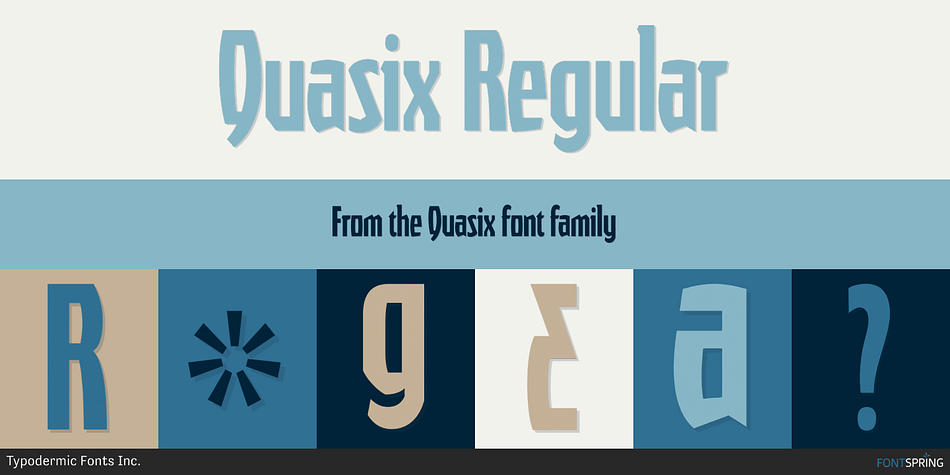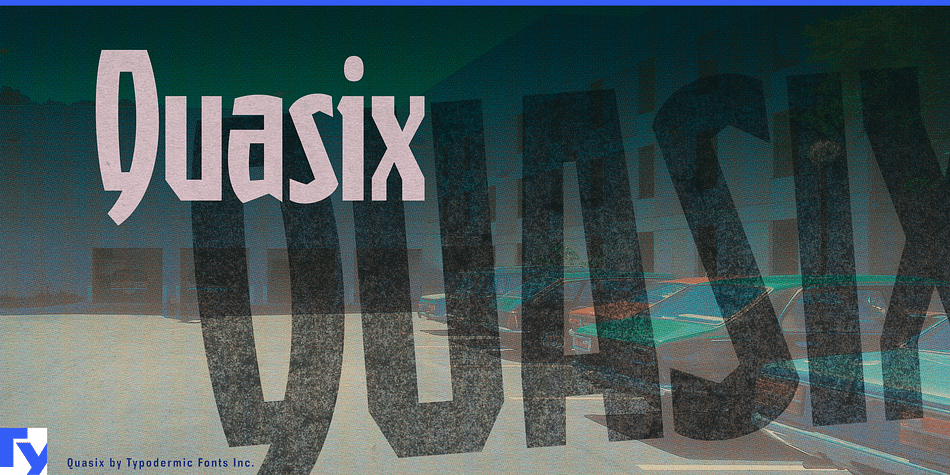
Quasix Regular
Quasix is a display sans font published by Typodermic Fonts Inc.
Introducing Quasix—the typeface that defies logic! With its compact industrial headline design, this font is the perfect choice for anyone looking to add an edge to their design work. But beware, its quirky design might have you scratching your head at first. Just like the inside of a machine, Quasix is full of moving parts, each with its own unique purpose—but don’t worry, you don’t have to be an engineer to appreciate its beauty.
This typeface is perfect for those who want to convey the concept of engineering devices without using typical techno typefaces or cliche physical symbols like gears and bolts. Quasix will elevate your design to the next level, and its versatility makes it suitable for a range of themes, from retro to modern and even futuristic.
Don’t be afraid to get creative with Quasix—this typeface was made to be bold and unconventional. Let it take center stage and watch as it transforms your design into something truly unique. Quasix defies convention and breaks the mold, making it the perfect choice for those who aren’t afraid to think outside the box. Try it out and see for yourself!